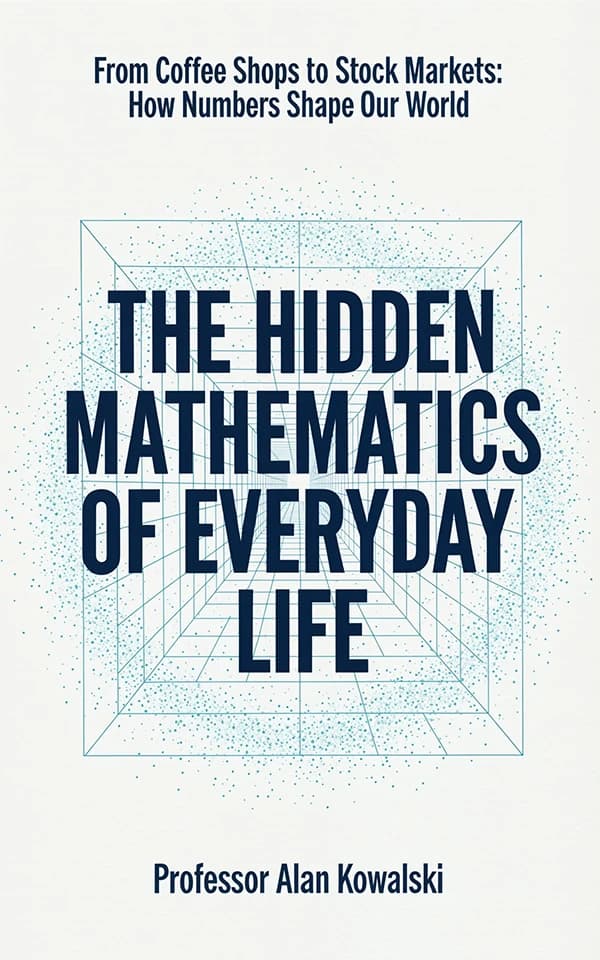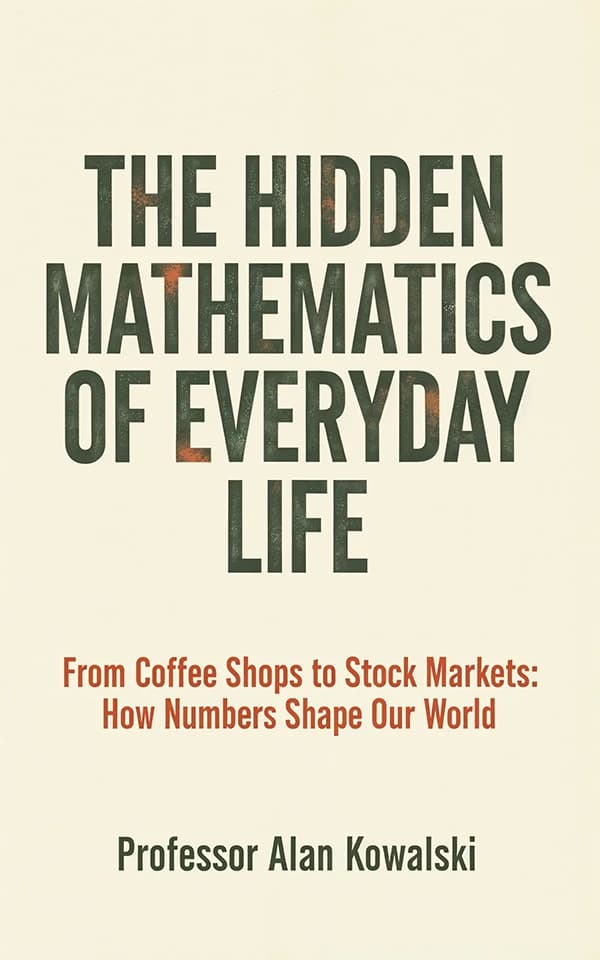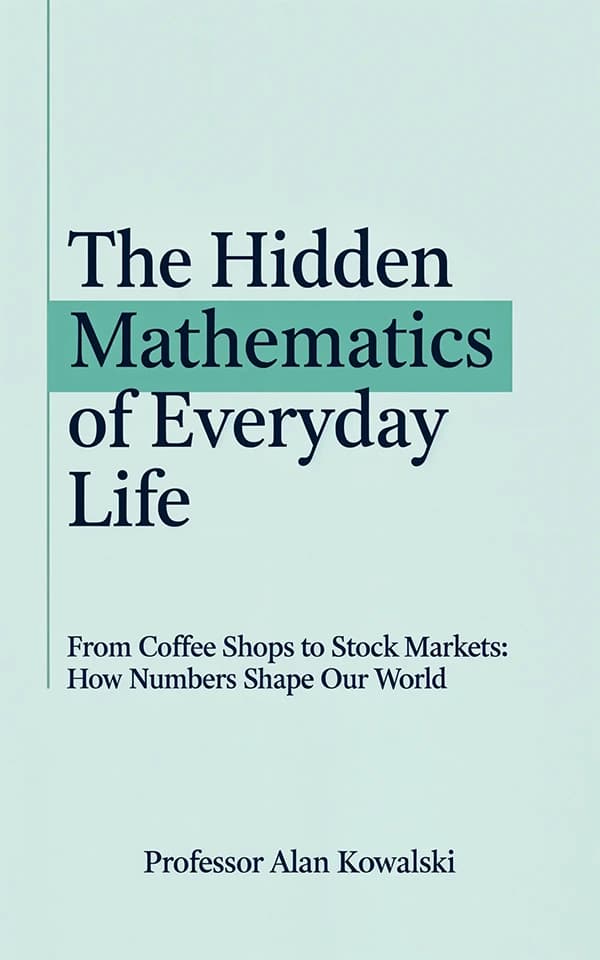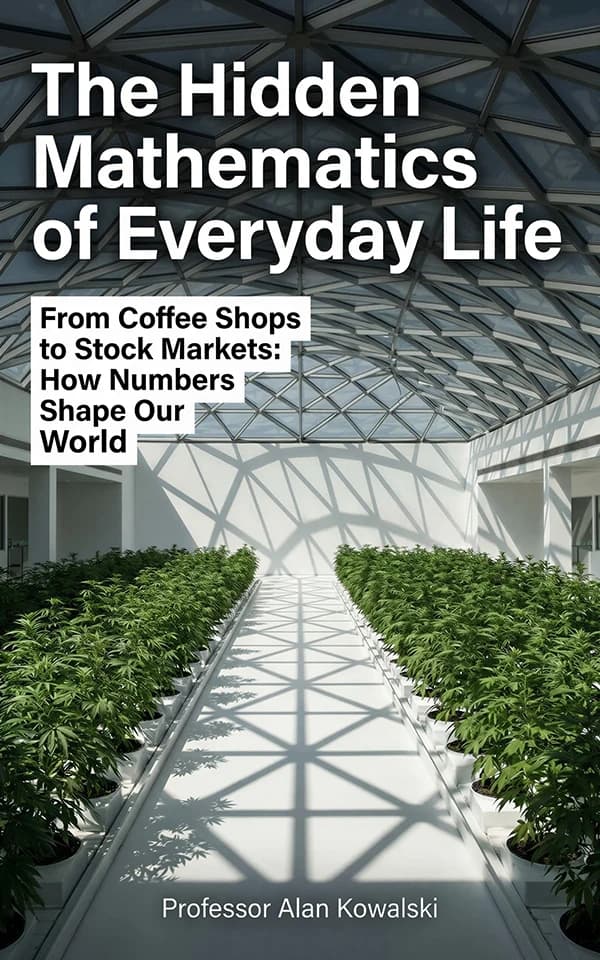
How to use fonts for book covers: Master Genre Pairing & Typography Tips
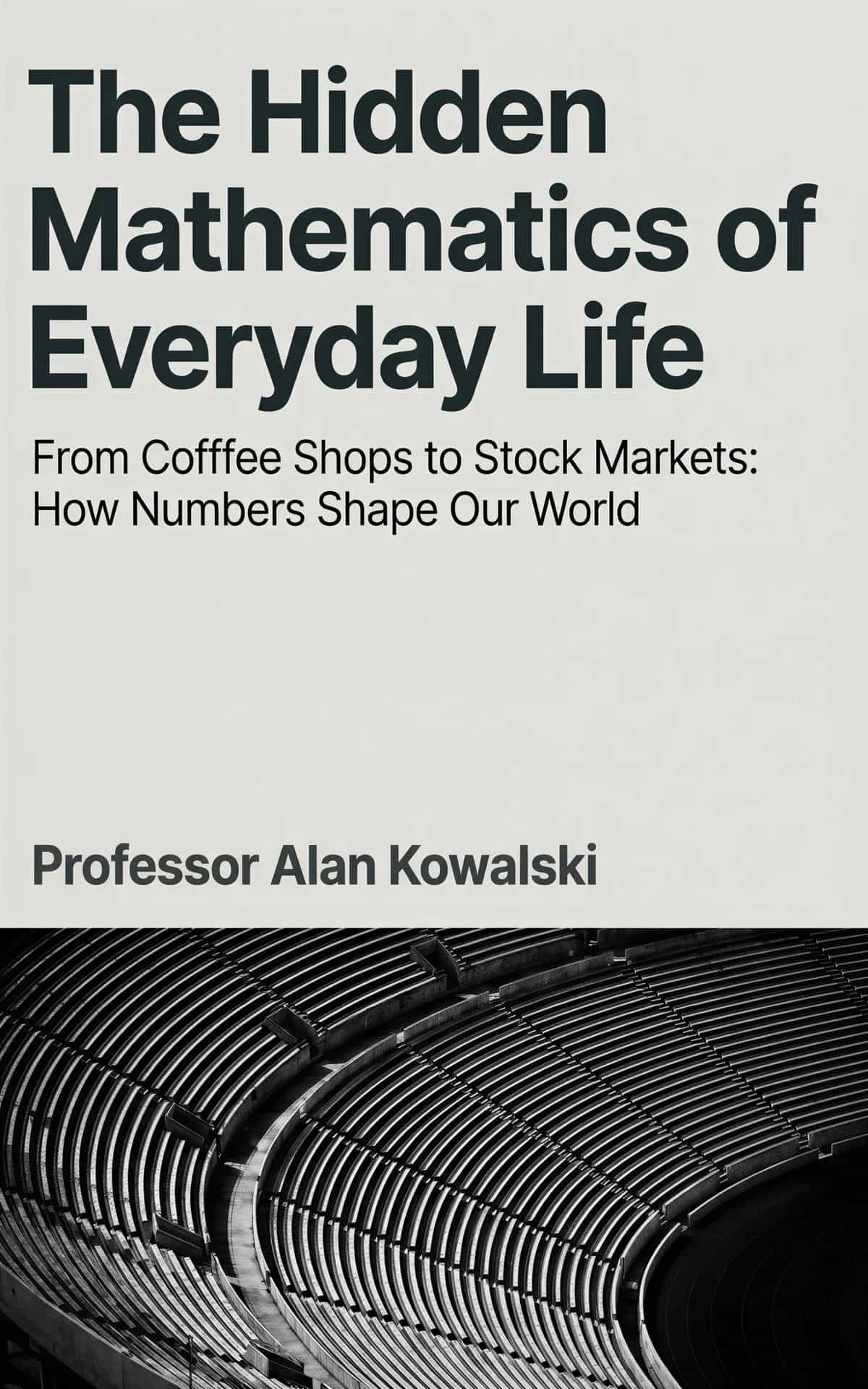
The best fonts for book covers don't just look good—they instantly tell a potential reader what your book is all about. They act as a powerful signal for your genre and forge an emotional connection before anyone even reads the blurb.
Think about it: elegant serif fonts like Garamond or Cinzel feel right at home on a fantasy or literary fiction novel. On the other hand, a bold sans-serif like Helvetica Neue or Agency FB screams thriller or sci-fi. Your font choice isn't just decoration; it's one of your most powerful marketing tools.
How Typography Shapes Your Book's First Impression
Long before a reader dives into your synopsis, your font has already started telling a story. See your cover's typography less as simple text and more as your book's "voice." It's a visual promise, setting expectations and creating an immediate gut feeling.
This first impression is a critical part of your marketing arsenal. The right font is like a silent salesperson, working in just a few seconds to grab your ideal reader and pull them in. It’s a strategic choice, not just an aesthetic one, that can make the difference between a click and a scroll.
Why Font Selection Is a Strategic Choice
Choosing fonts for your book cover is so much more than picking something you find pretty. It’s a deep dive into visual communication, where every curve and line carries a subconscious message.
A smart font choice can:
- Instantly Signal Genre: A sharp, condensed font shouts "thriller," while a flowing, elegant script whispers "romance." Readers lean on these visual shortcuts to find the books they’ll love.
- Establish Tone and Mood: Is your story dark and gritty? Light and funny? Your typography sets the stage and conveys that atmosphere immediately.
Your cover font is the handshake you offer every potential reader. It can be firm and confident, mysterious and intriguing, or warm and inviting—but it absolutely must be intentional.
Building Your Typography Framework
This guide is here to take the guesswork out of the equation. We’re going to dig into the psychology behind different font styles, the art of pairing fonts for a clean visual hierarchy, and the nitty-gritty technical details that make a design look professional, not amateur.
By the end, you'll have a complete framework for making confident, effective typography choices that help your book stand out, connect with readers, and ultimately, sell.
Matching Your Font to Your Book's Genre
Think of your book cover font as a genre-specific handshake. It's the first thing a reader sees, and in that split second, it has to feel right. Slapping an elegant script on a gritty thriller cover is like showing up to a back-alley brawl in a tuxedo—it’s just plain confusing and breaks the unspoken promise you've made to your audience.
The goal isn't just to pick a pretty font. It's about choosing a typeface that readers in your genre are already wired to understand. They have expectations, and your font is the fastest way to signal that you've got what they're looking for. Getting this right is a huge part of what makes a good book cover.
When you pick a font that fits your genre, you’re not being cliché; you’re speaking a shared visual language. It’s a smart move that helps readers find their next favorite book—yours. If you want to see those conventions already applied, the book cover template gallery lets you filter by genre and inspect the typography each category leans on.